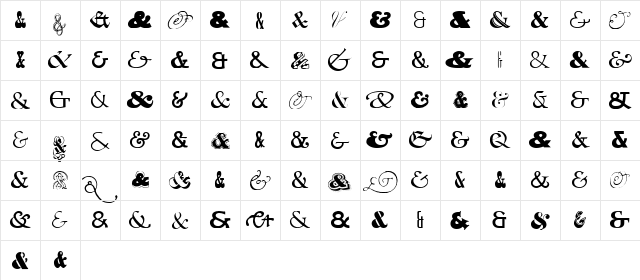
Ampersands One Regular
Design Context for Ampersands One Typeface
Ampersands One takes a measured approach to typography — its balanced proportions and neutral character make it a reliable workhorse for both digital and print work.